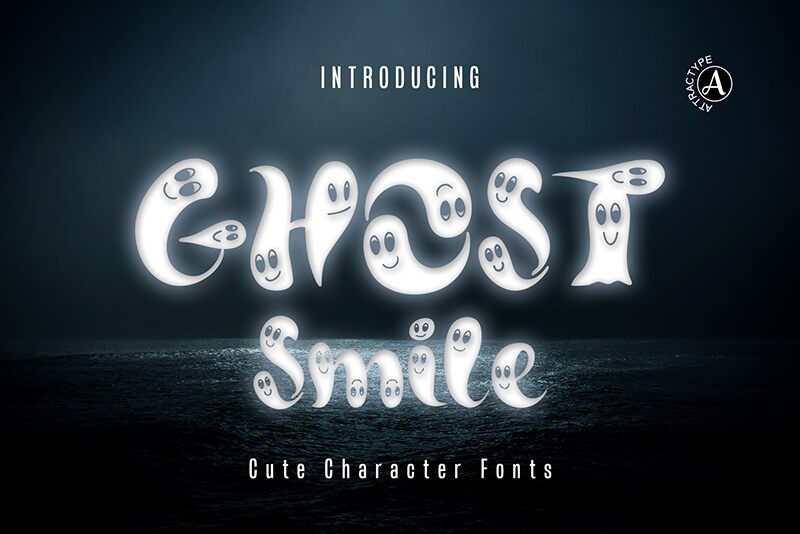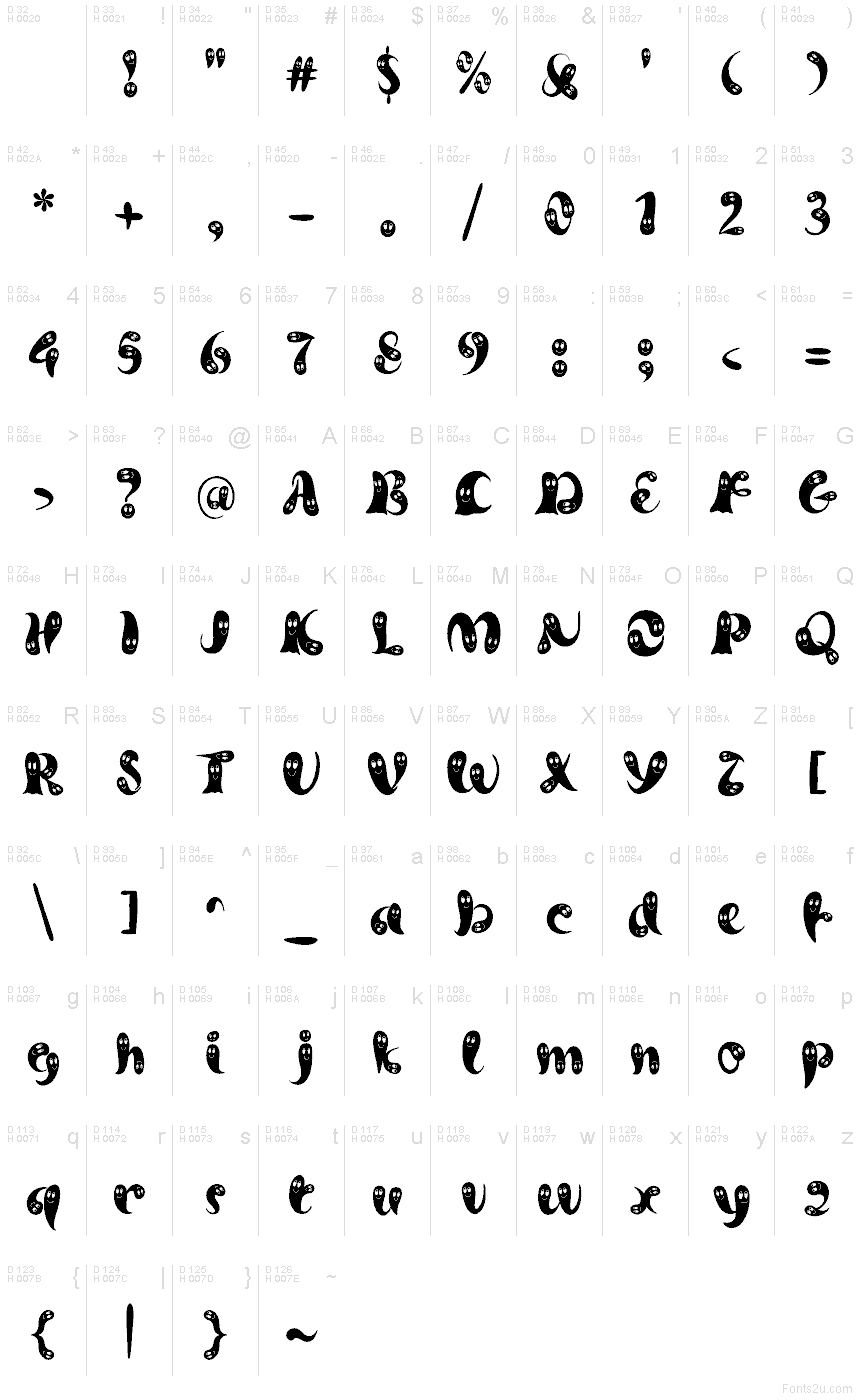
Ghost Smile
Ghost Smile font by Attractype is a free Halloween holiday display font. Each letter feels like a friendly spirit—soft, inky blobs that wobble slightly, with tiny smiling faces peeking from the strokes. It’s spooky without the scare, giving headlines a playful, candlelit glow that kids and families actually welcome.
Using Ghost Smile, your trick-or-treat posters, kids’ party invites, classroom bulletin boards, pumpkin patch signs, seasonal Instagram posts, and treat-bag stickers all get instant charm. It shines at larger sizes where those eyes and grins pop. Pair it with a clean geometric sans for body copy, and let this free font carry the headline fun.